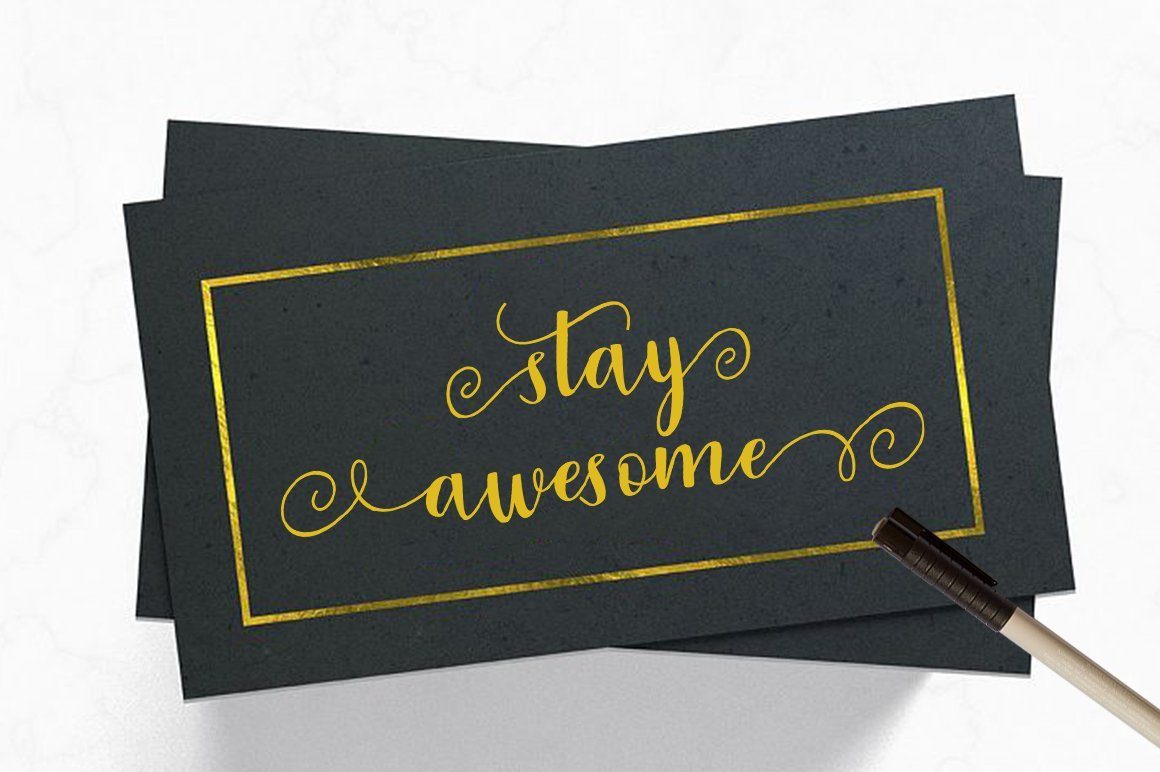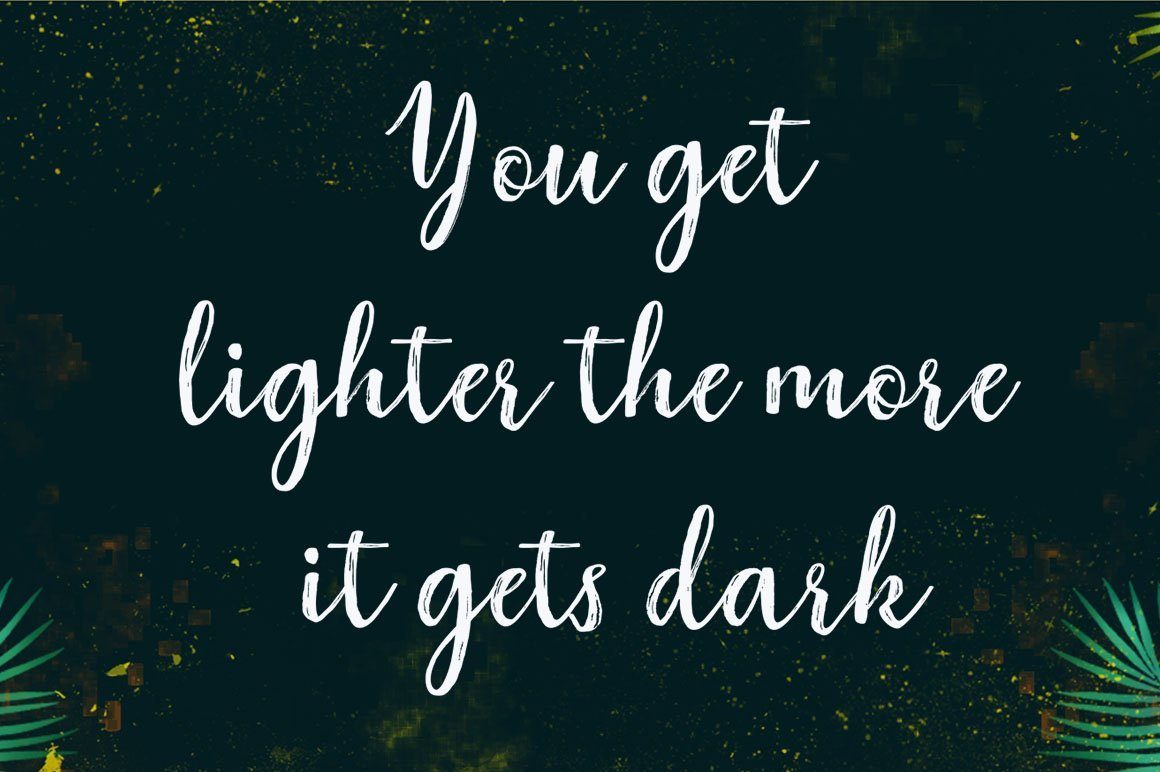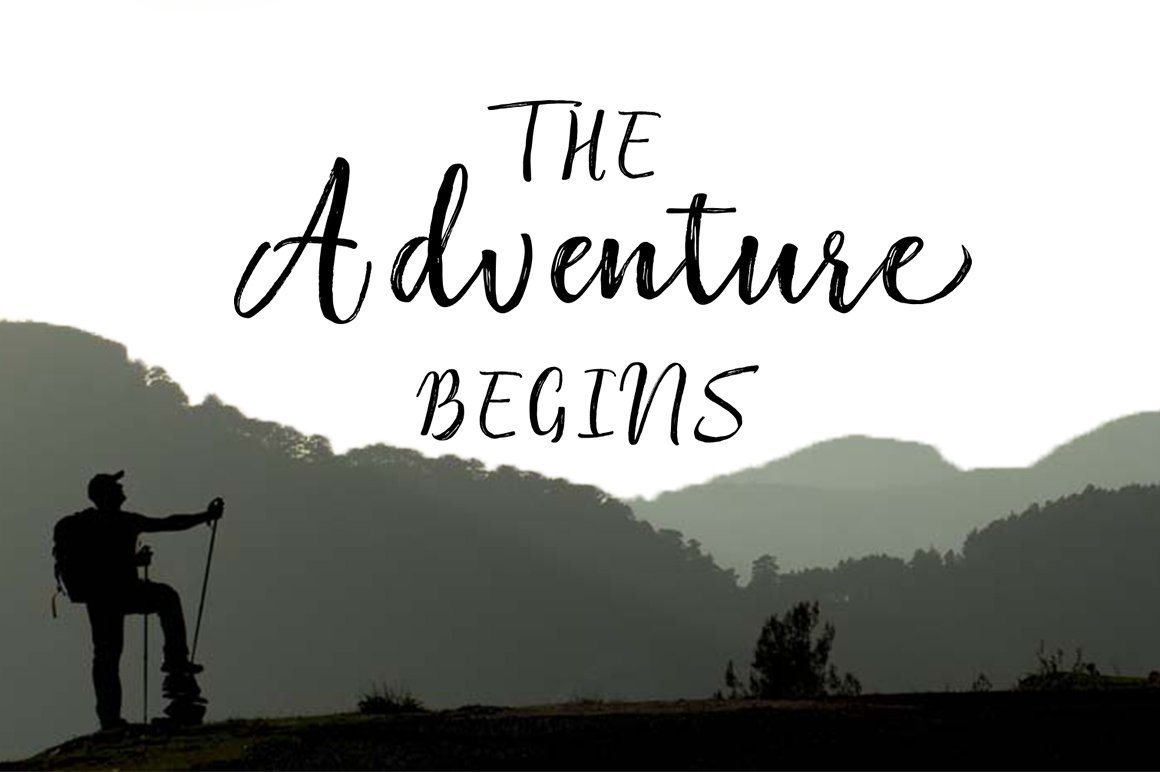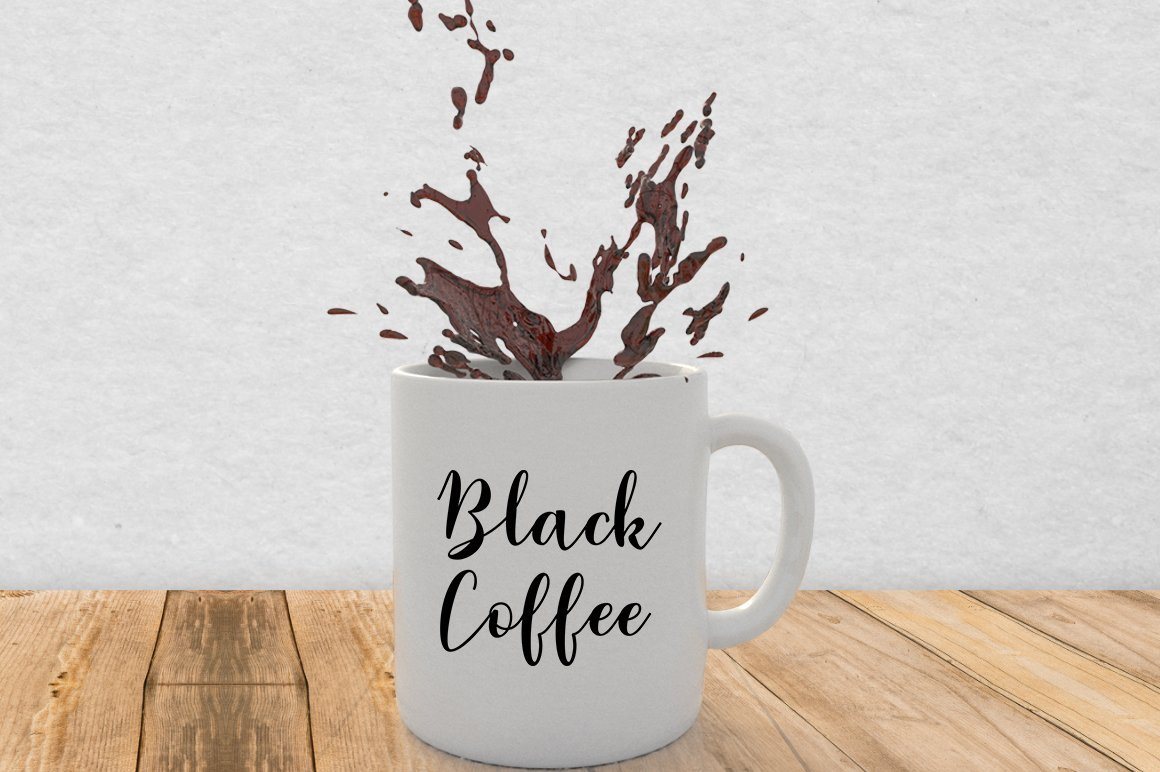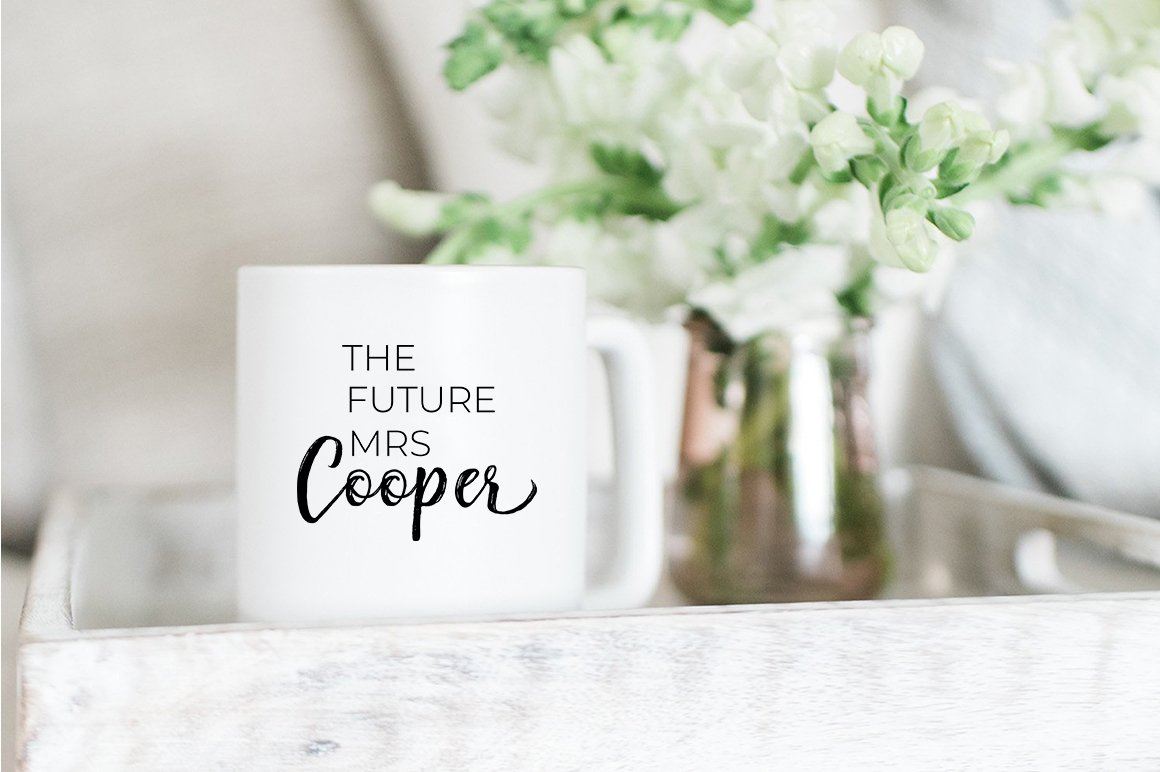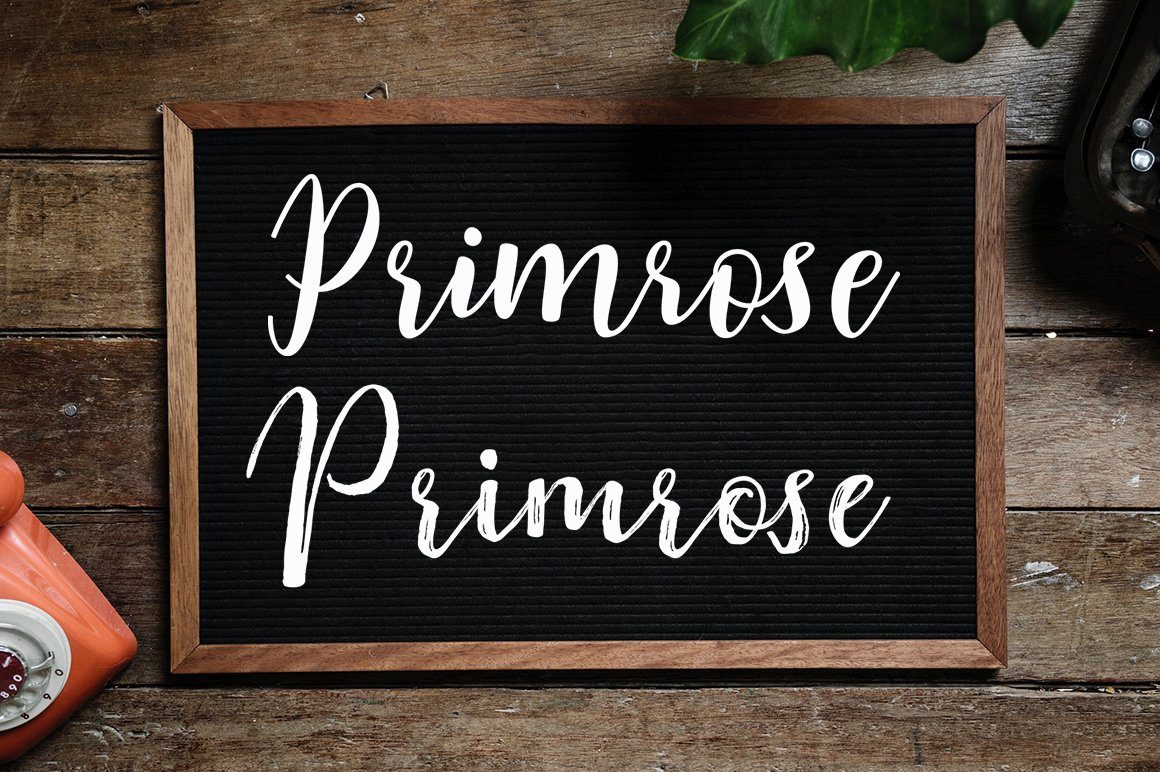
Raspberry Font Duo
About Raspberry Font Duo
Rasberry Script is a new modern script font with an irregular baseline. Trendy and feminine style. Rasberry looks lovely on wedding invitations, thank you cards, quotes, greeting cards, logos, business cards and more. Perfect for using in ink or watercolour. Including initial and terminal letters, alternates, ligatures and multiple language support.